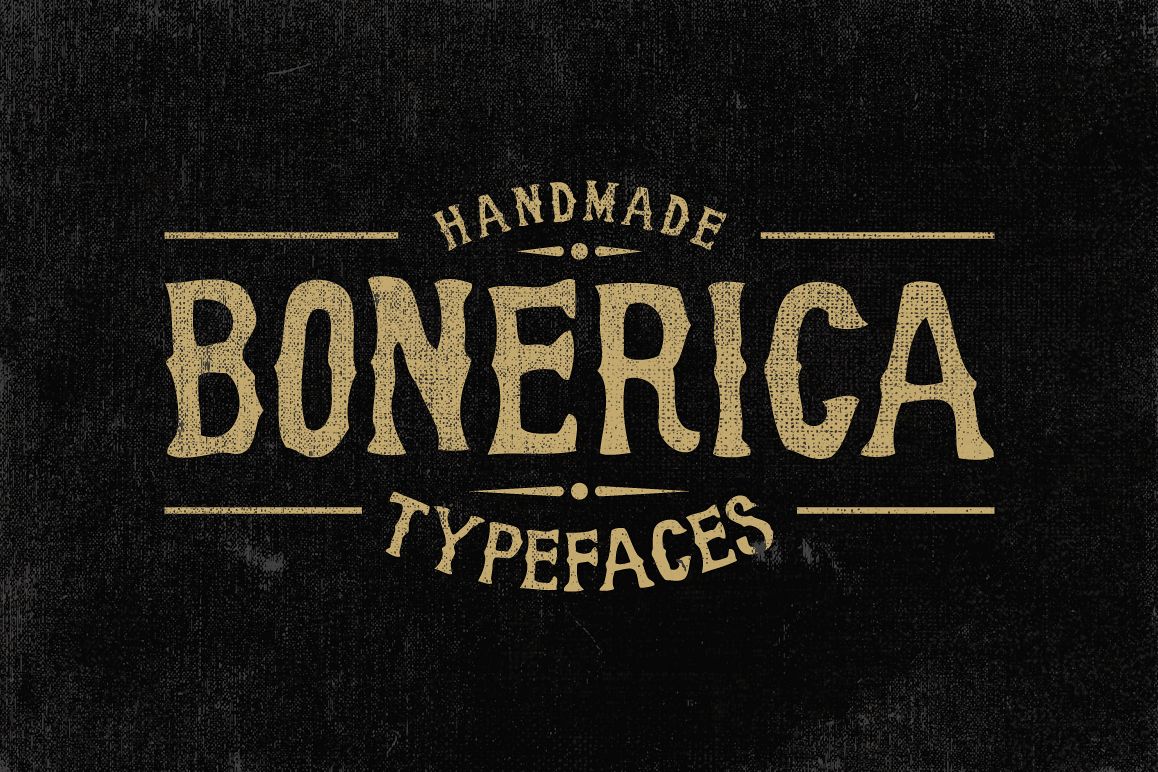
Bonerica Typeface
Bonerica
Hi, introducing Bonerica typeface.
This is Bonerica typeface is serif font made by hand. This is good for logo,greeting cards, posters, labels, t-shirt design, modern vintage, etc.comment or feedback are very appreciate.